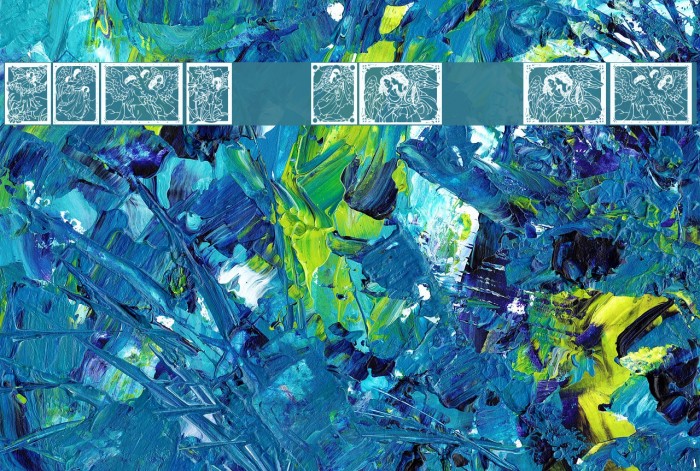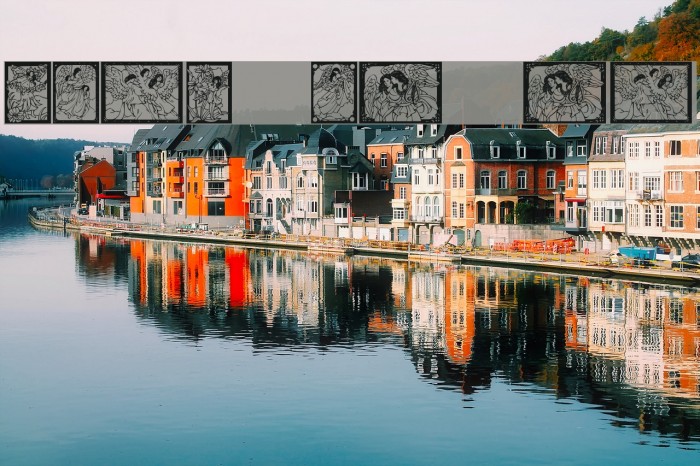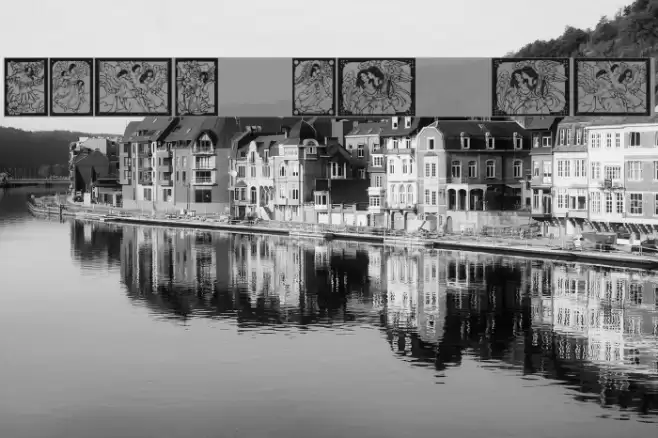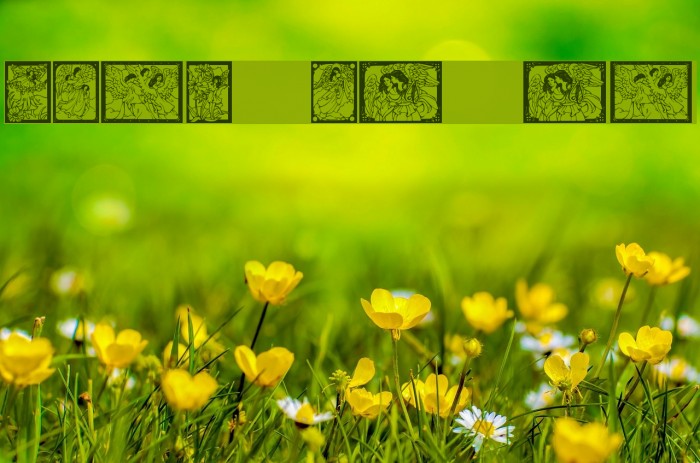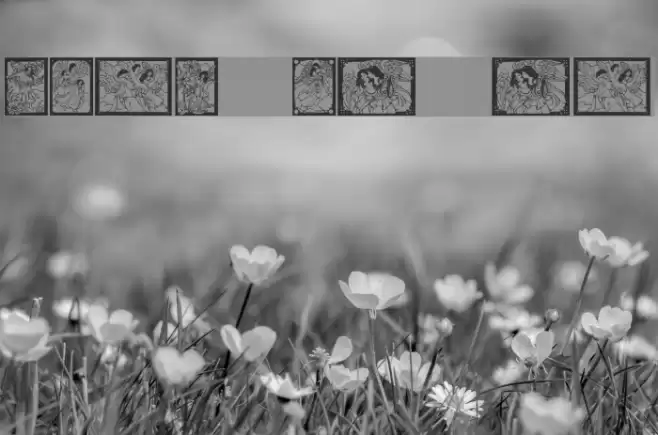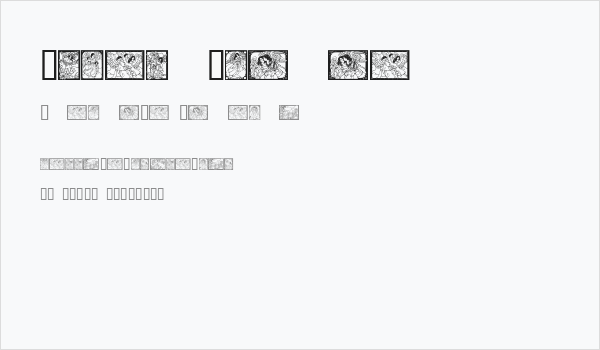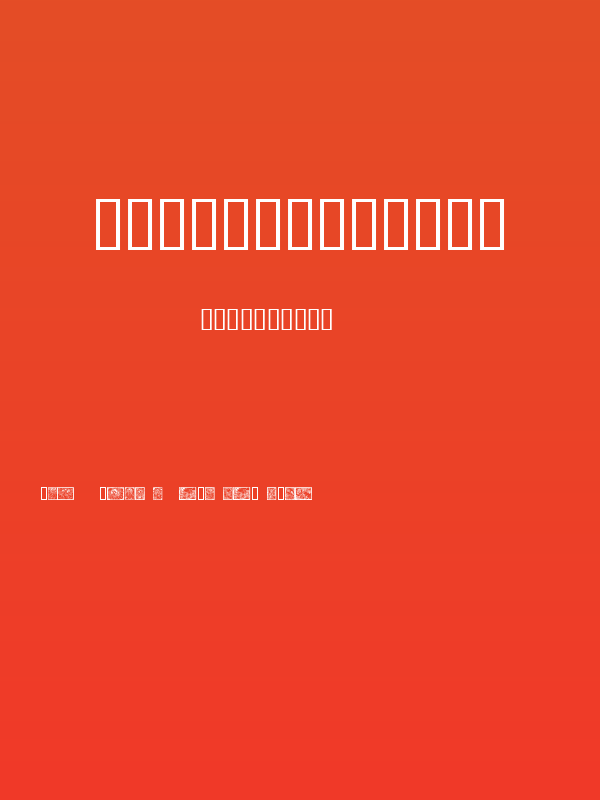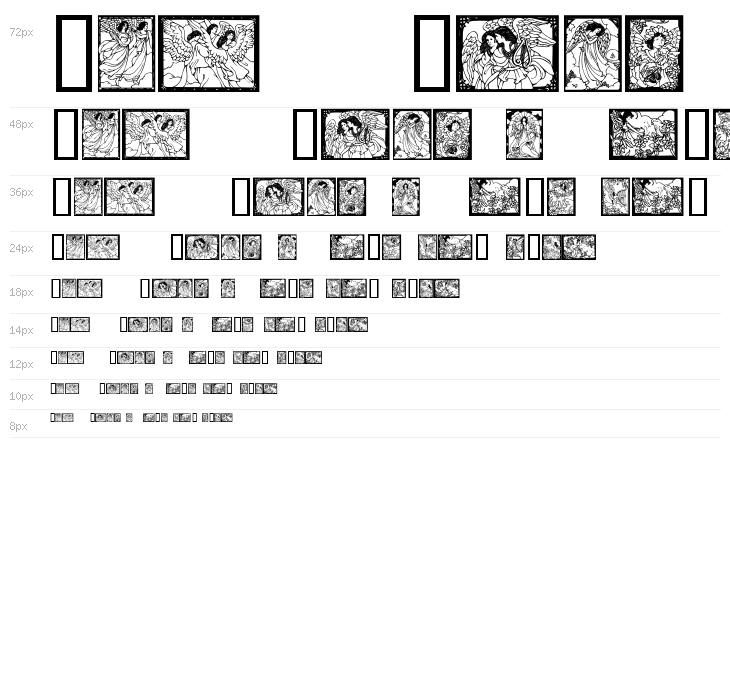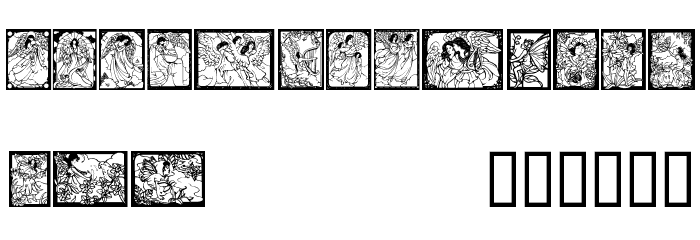
AngelsFairies Font
AngelsFairies Description
A decorative dingbat font featuring detailed black-and-white illustrations of angels and fairies in various poses, each character represented by a unique, intricate drawing within a square frame.
| Overall Style | Decorative, Fantasy, Whimsical |
| Use Case | Decorative elements, Illustrative accents, Themed graphics |
| Proposed Projects | Greeting cards, scrapbooking, fantasy-themed invitations, decorative borders, children's book illustrations. |